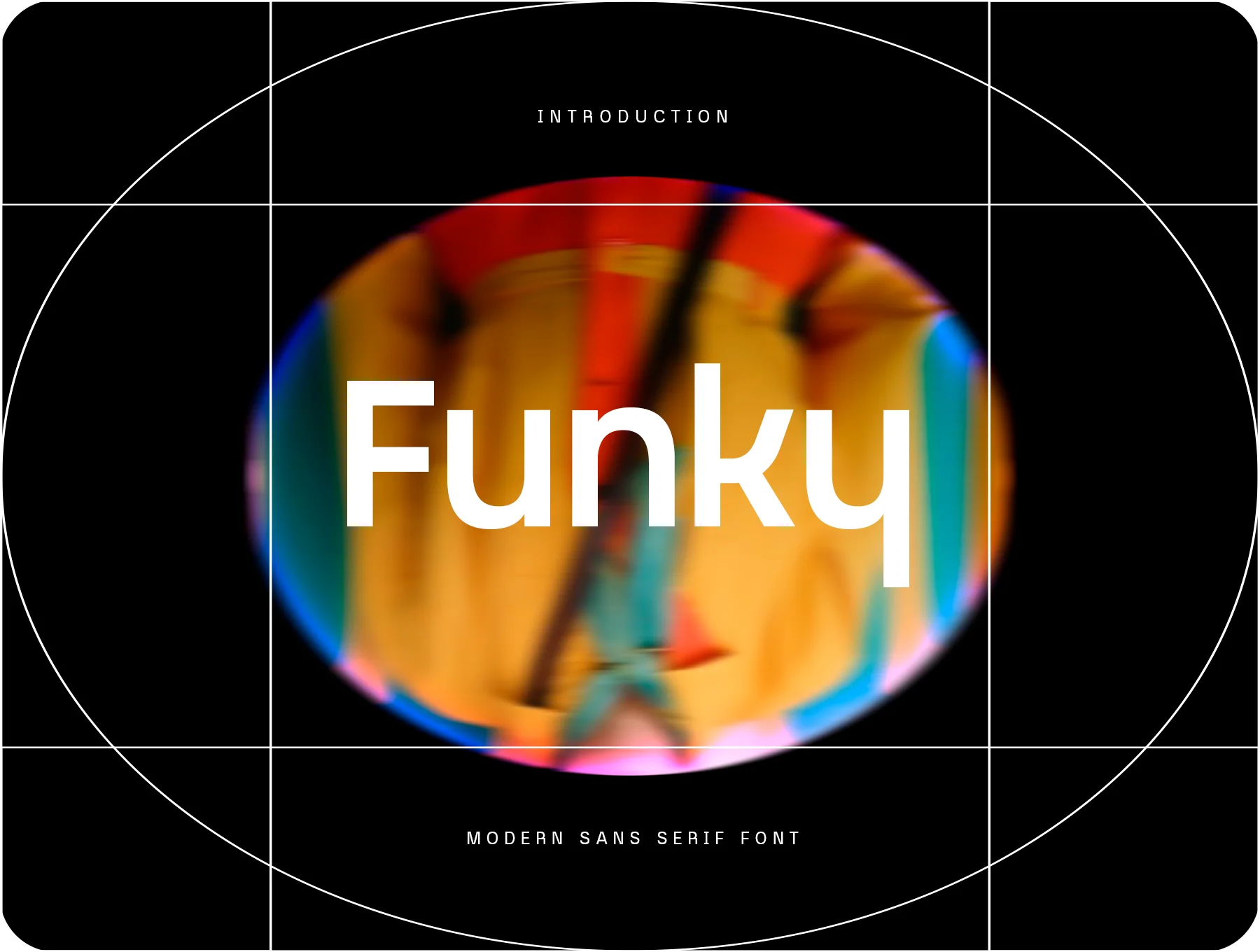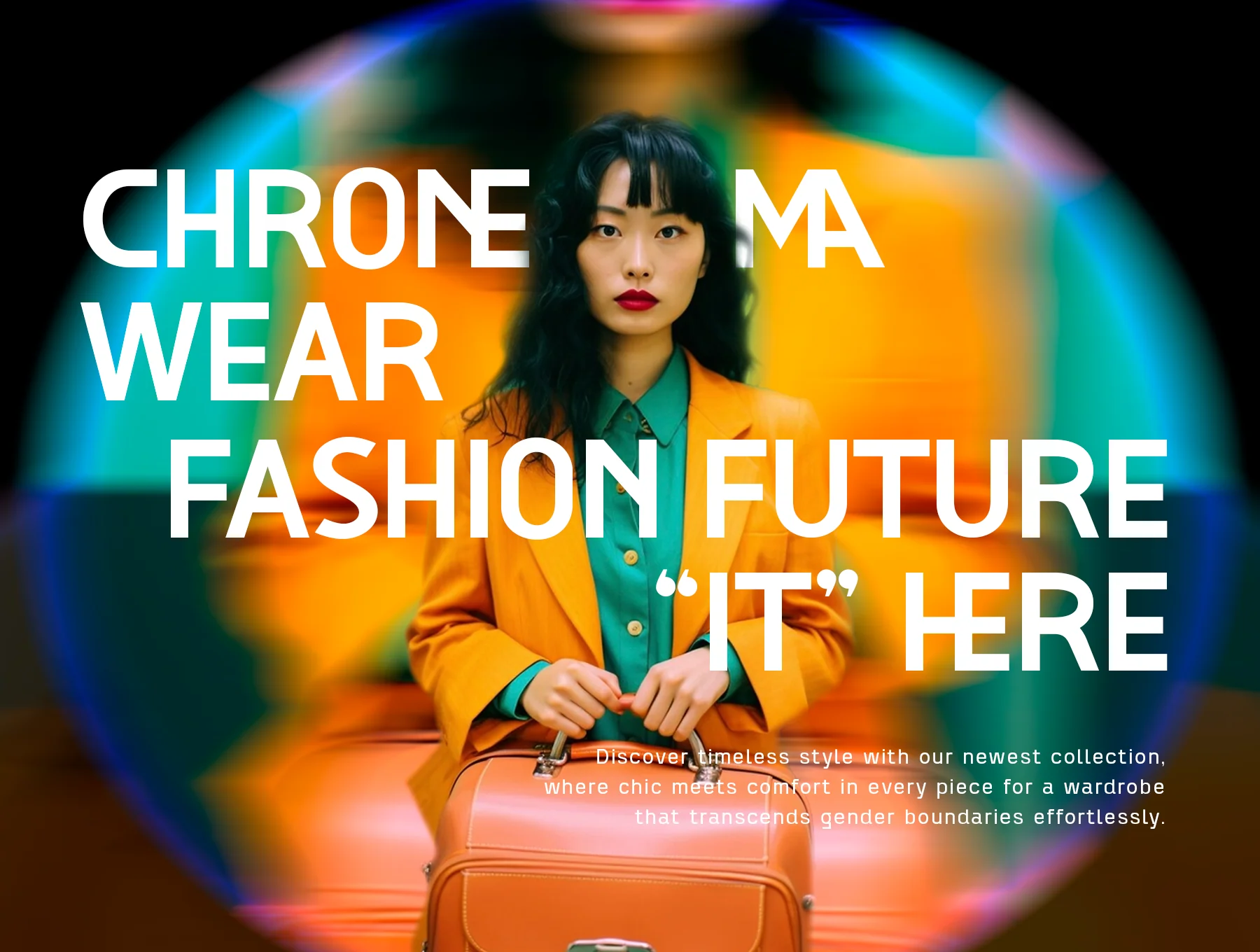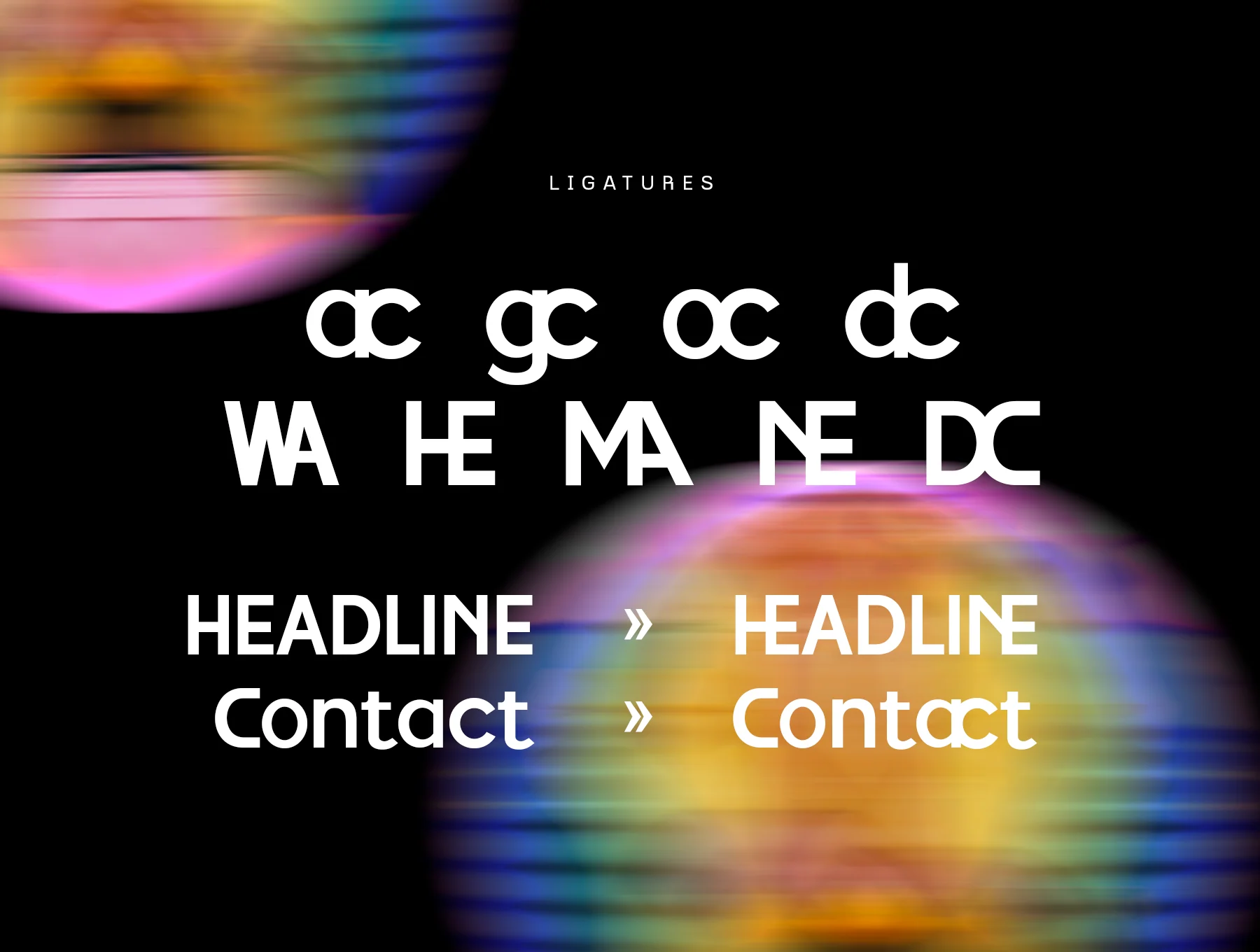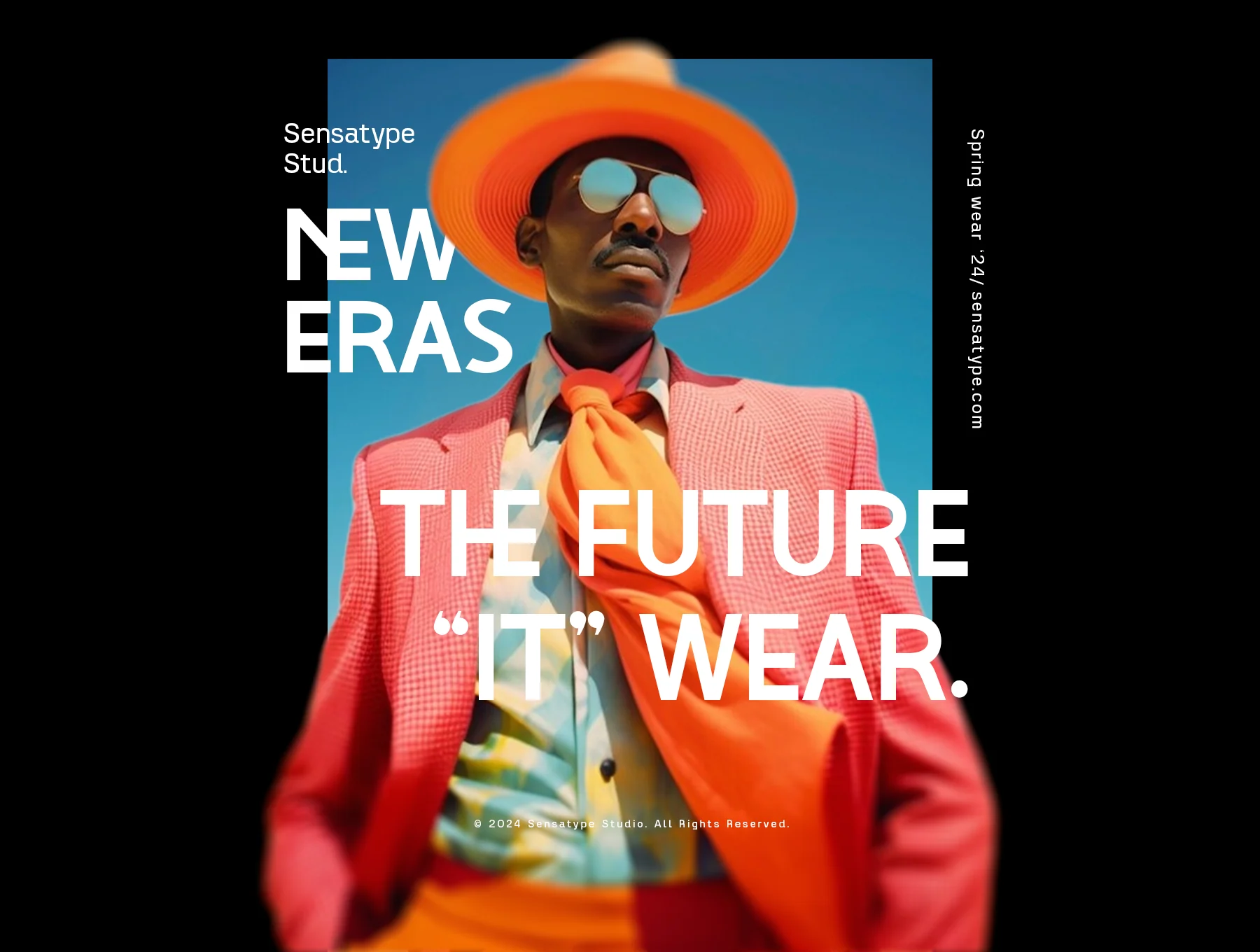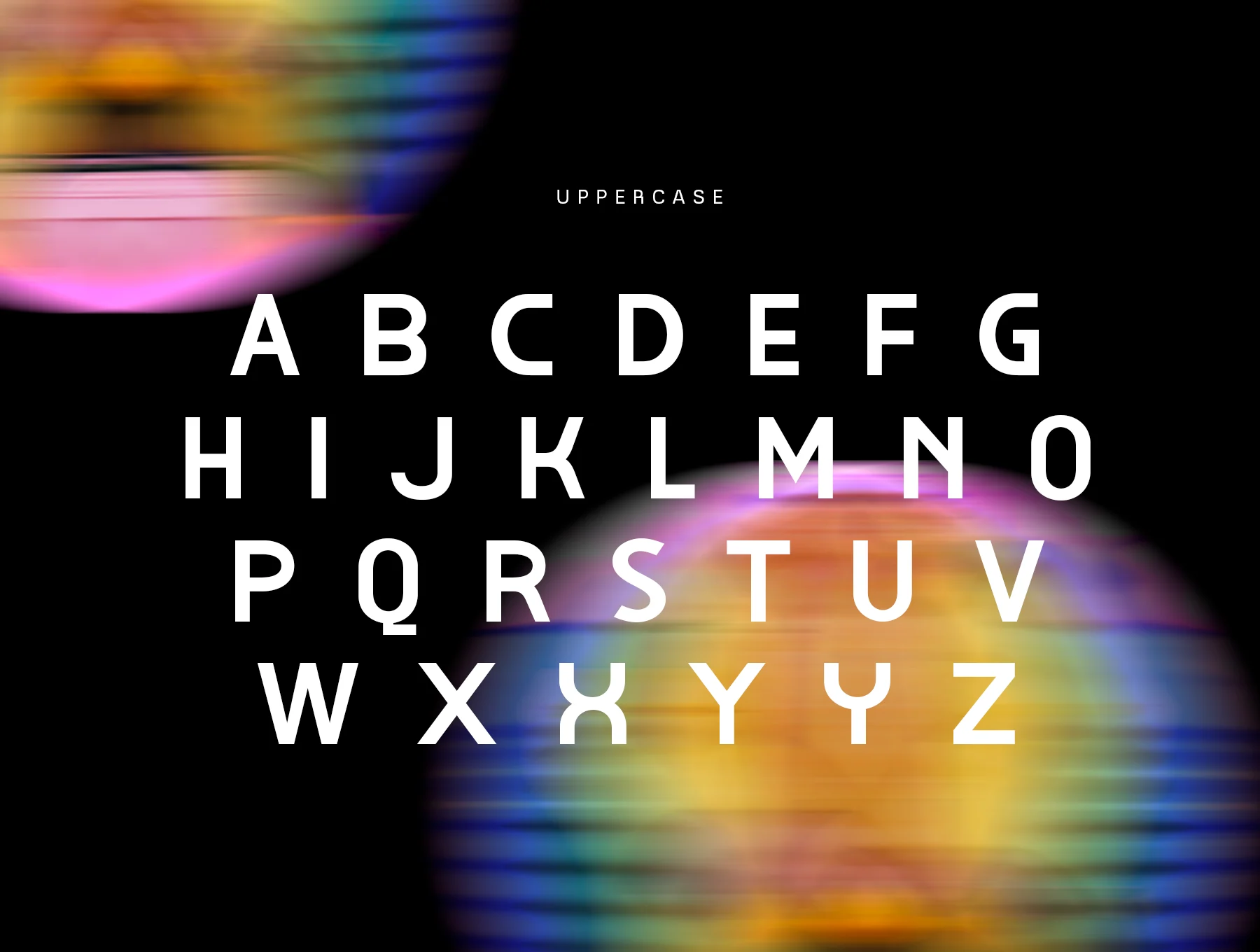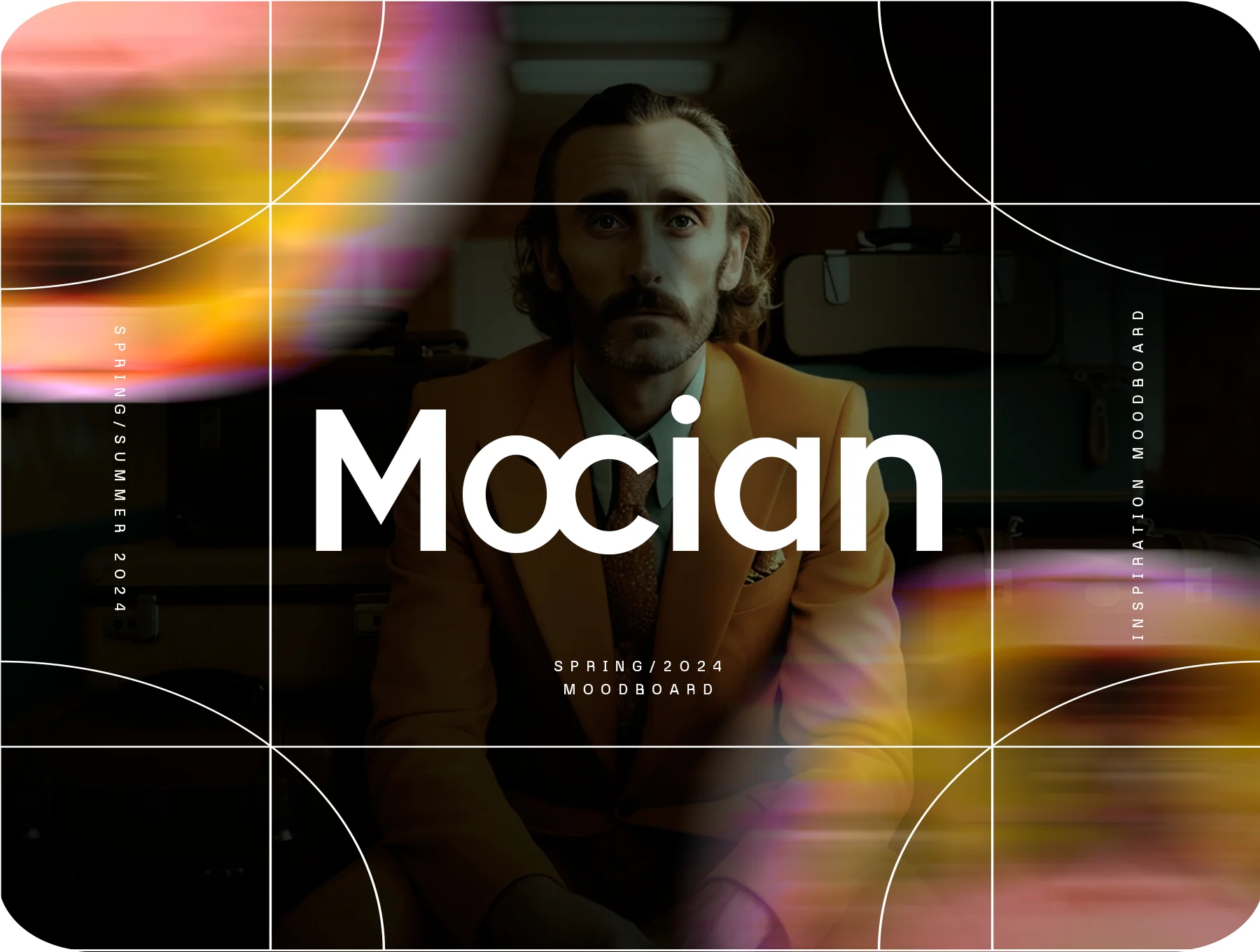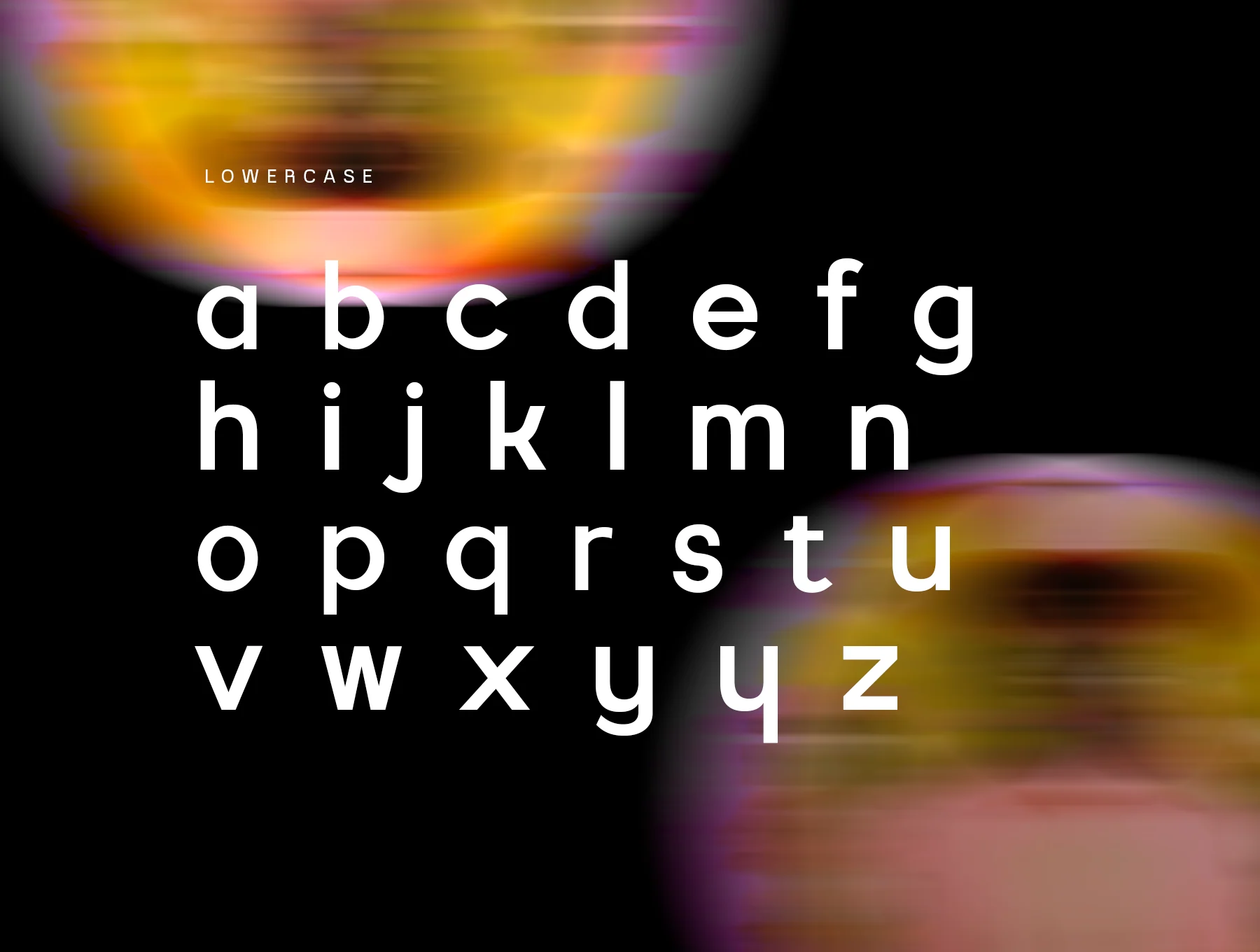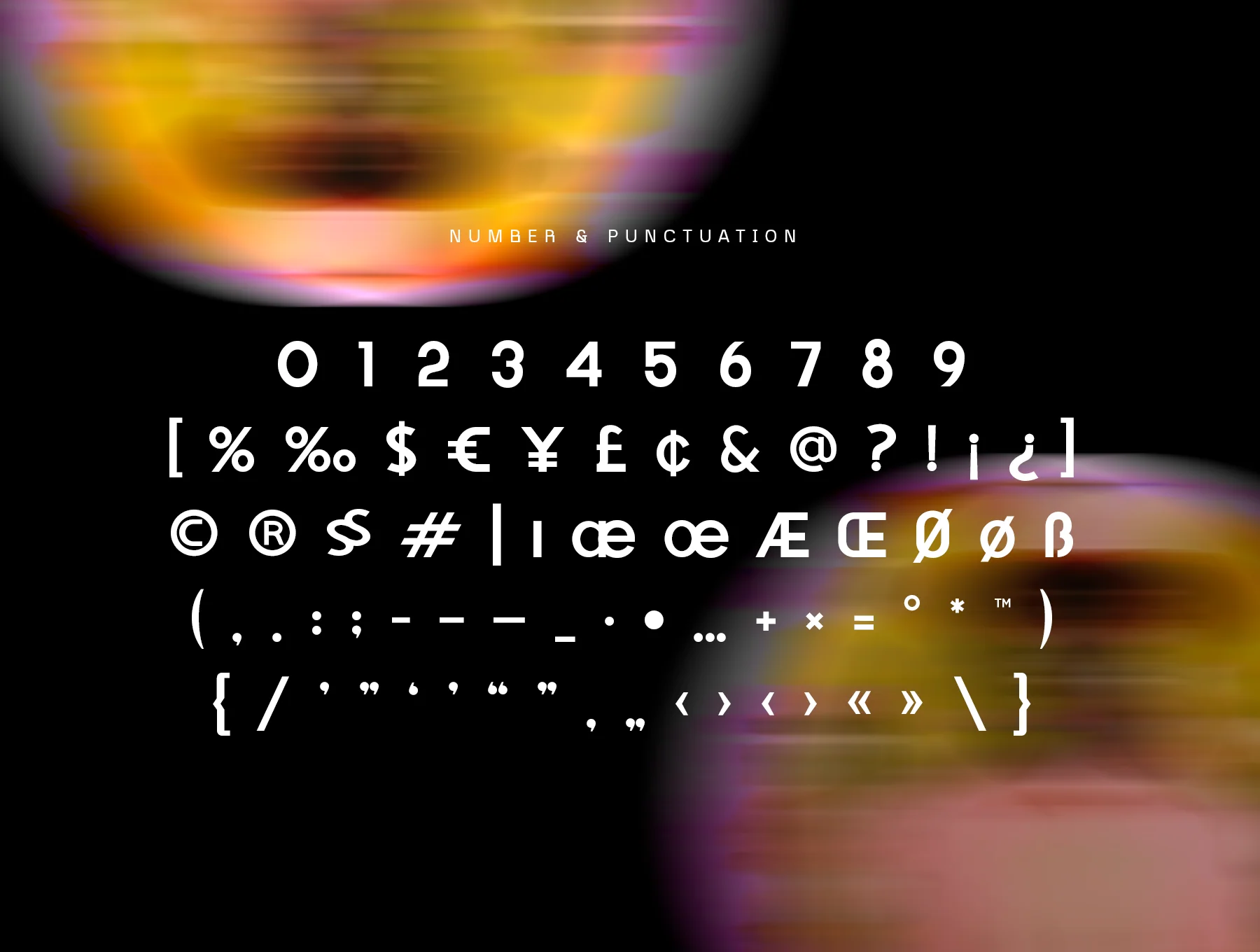
Funky Font
Funky - Contemporary Sans Serif Typeface
Numbers and punctuation marks
Alternate styles and ligature options
Funky is a modern sans serif font with distinctive curves, ideal for branding, logos, posters, headlines, titles, and bold typography. Designed with extra ligatures for more variation, it brings a unique contemporary feel to projects that need expressive style and a strong visual focus.